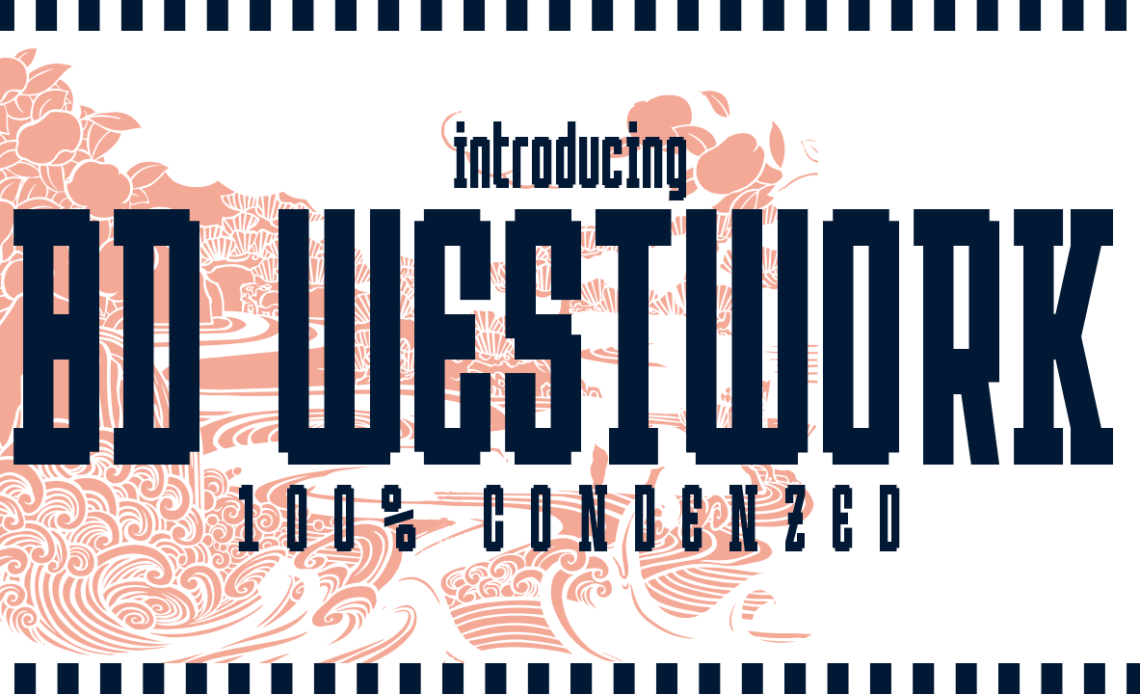
Dive into a realm of captivating typography with BD Westwork, a bold and distinctive display typeface that commands attention like no other. Its condensed form and pronounced weight exude a sense of power and confidence, making it the perfect choice for headlines, titles, logos, and branding that demands to be seen.
Journey into the world of gaming with BD Westwork, a font style specifically designed to bring life to your digital adventures. Its bold and condensed strokes capture the essence of strength and determination, making it the ultimate choice for titles, character names, and any element that demands attention.
Unleash your creativity and take your designs to the next level with BD Westwork. Its versatile nature shines both in combination with delicate illustrations and photos, creating striking contrasts that captivate the eye. The harmonious interplay between BD Westwork and serifs or sans serif body text ensures a cohesive and visually stunning outcome.
Visualize your words taking on a life of their own with BD Westwork. Its bold lines and condensed form create a captivating canvas for your messages, enhancing their impact and leaving a lasting impression. Experience the thrill of seeing your ideas transformed into visually striking masterpieces that resonate with your audience.